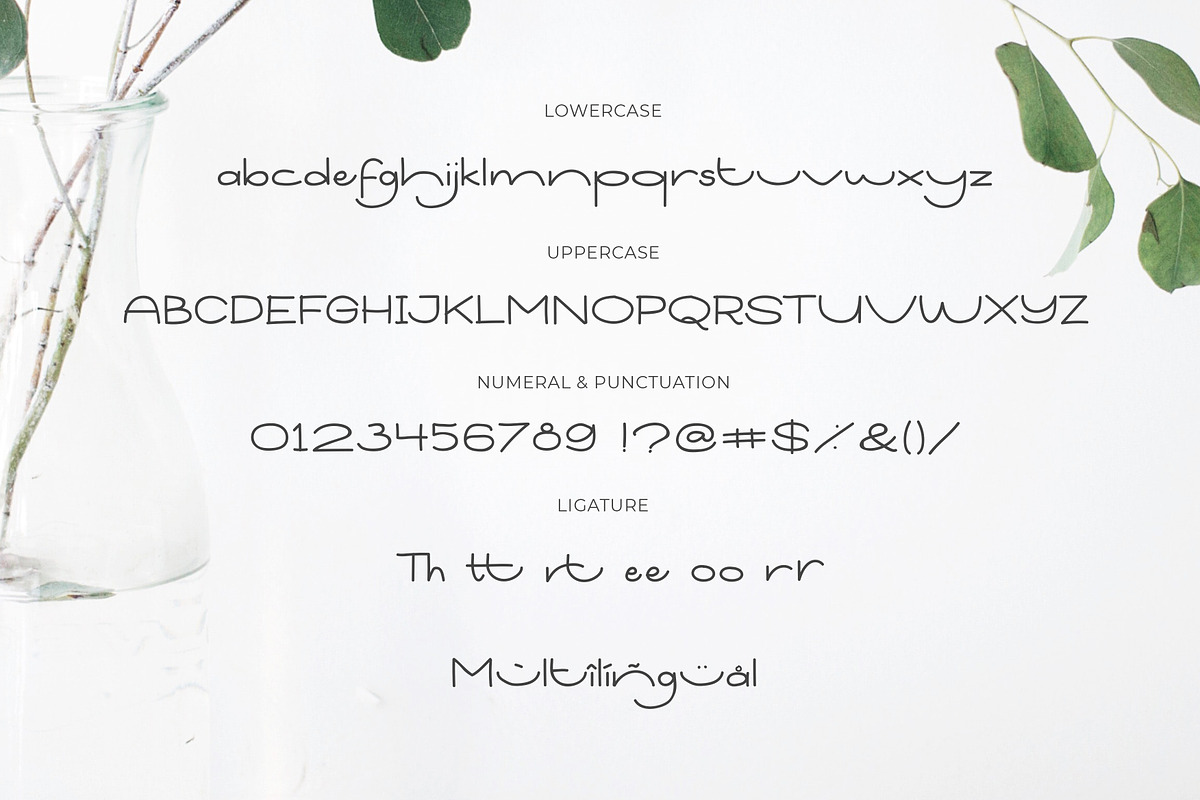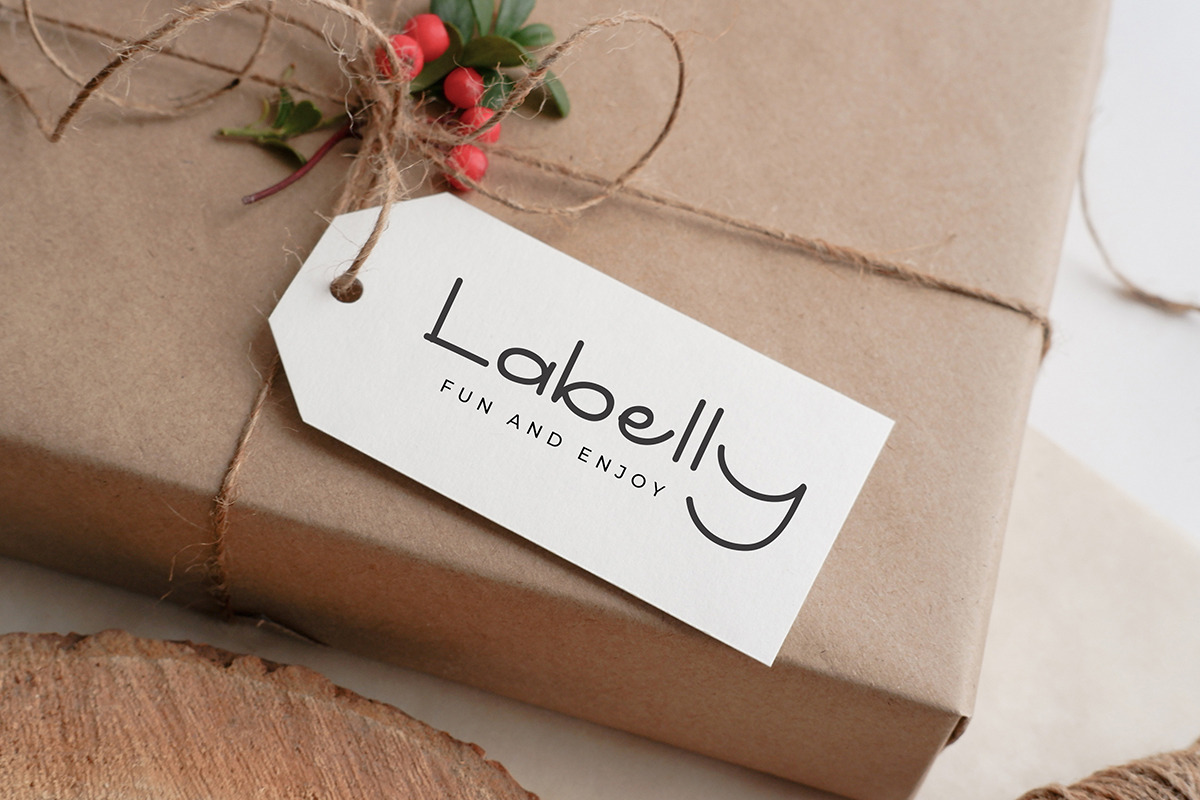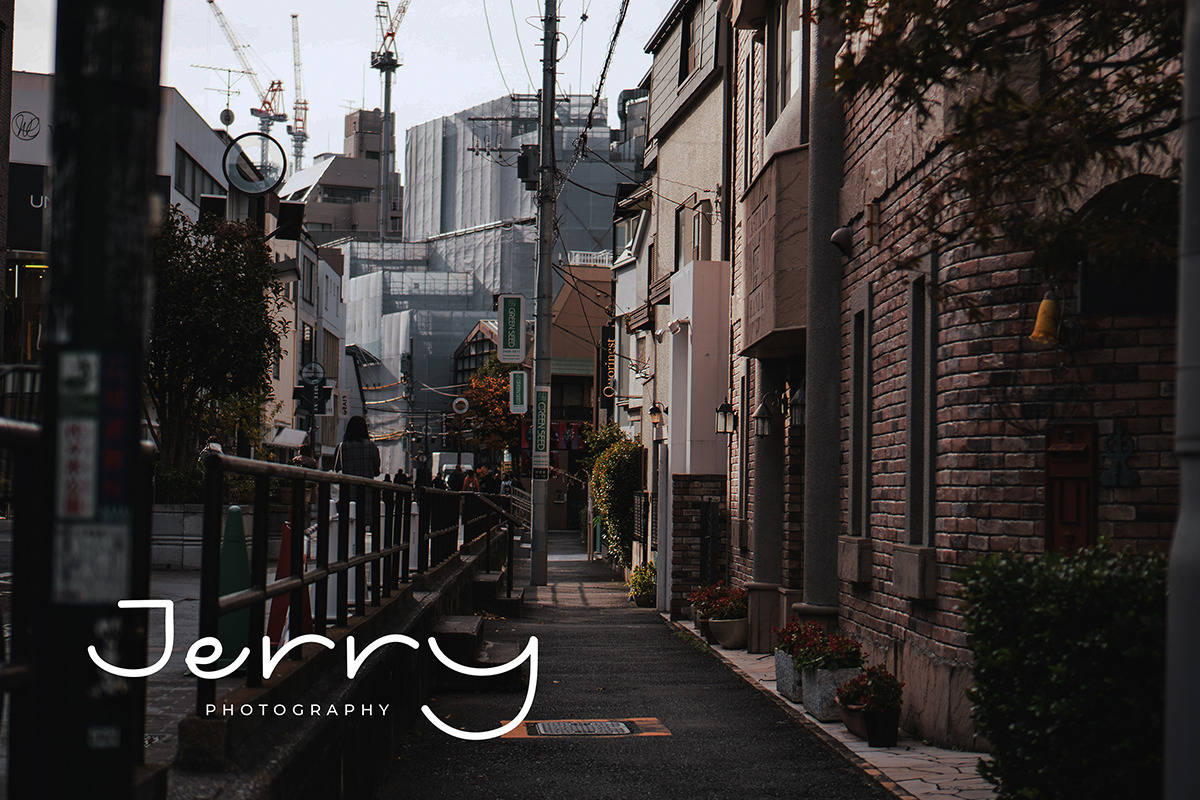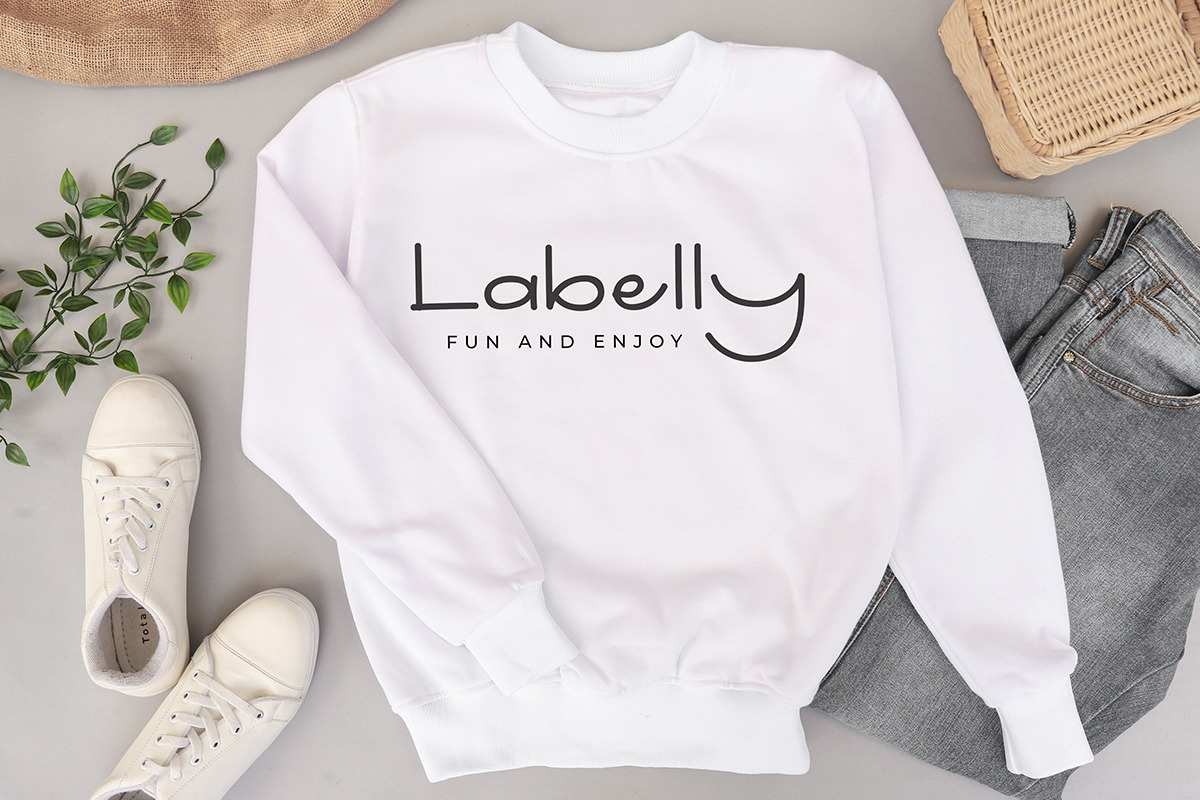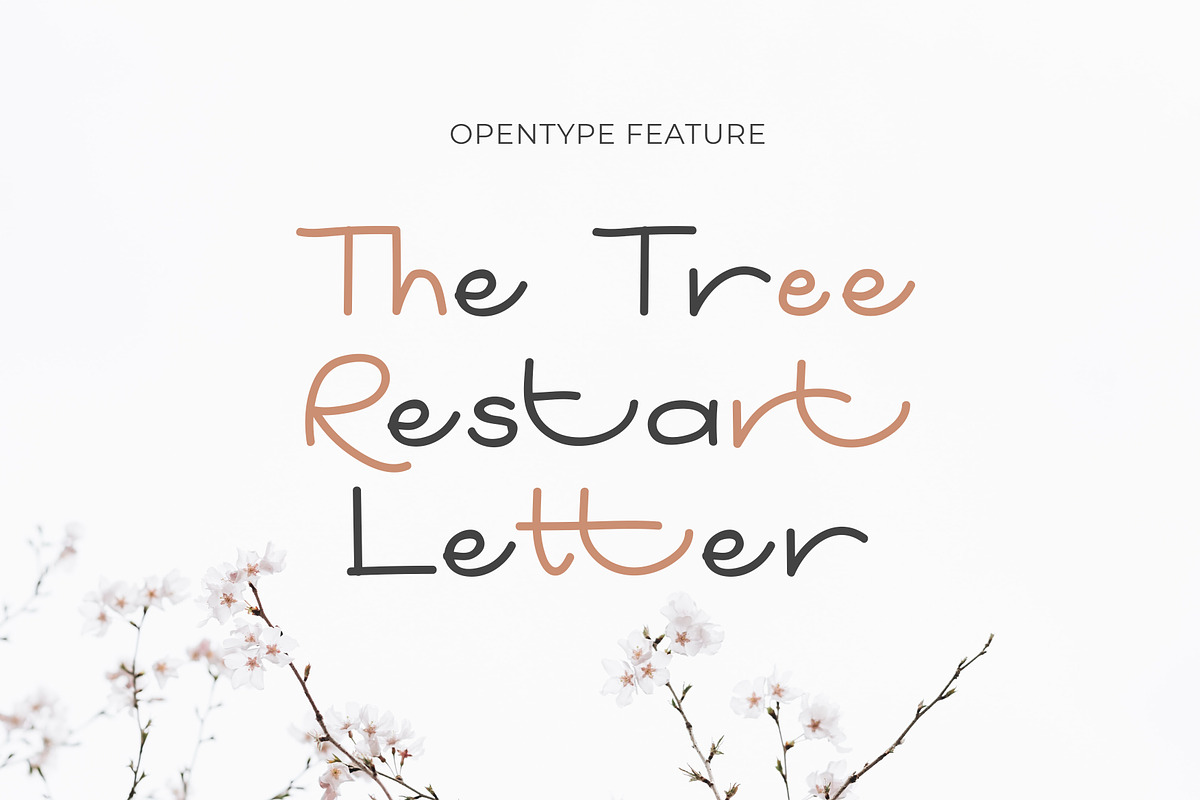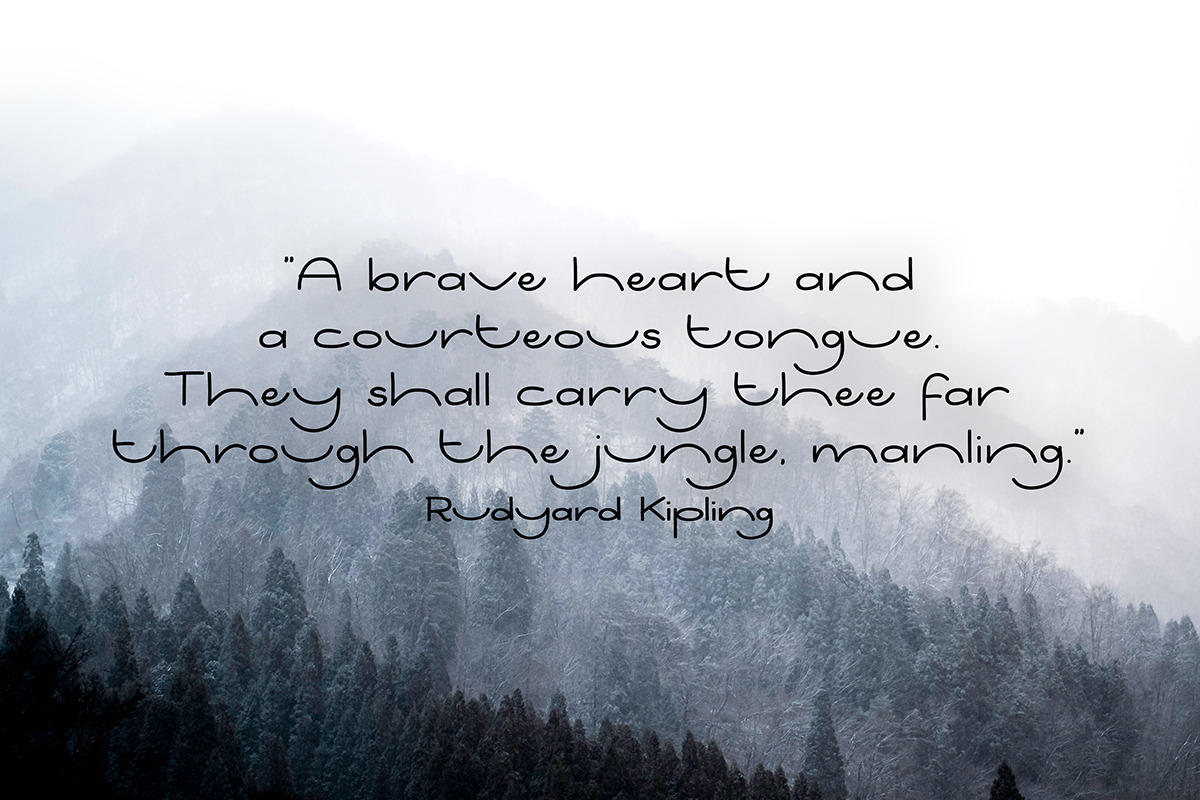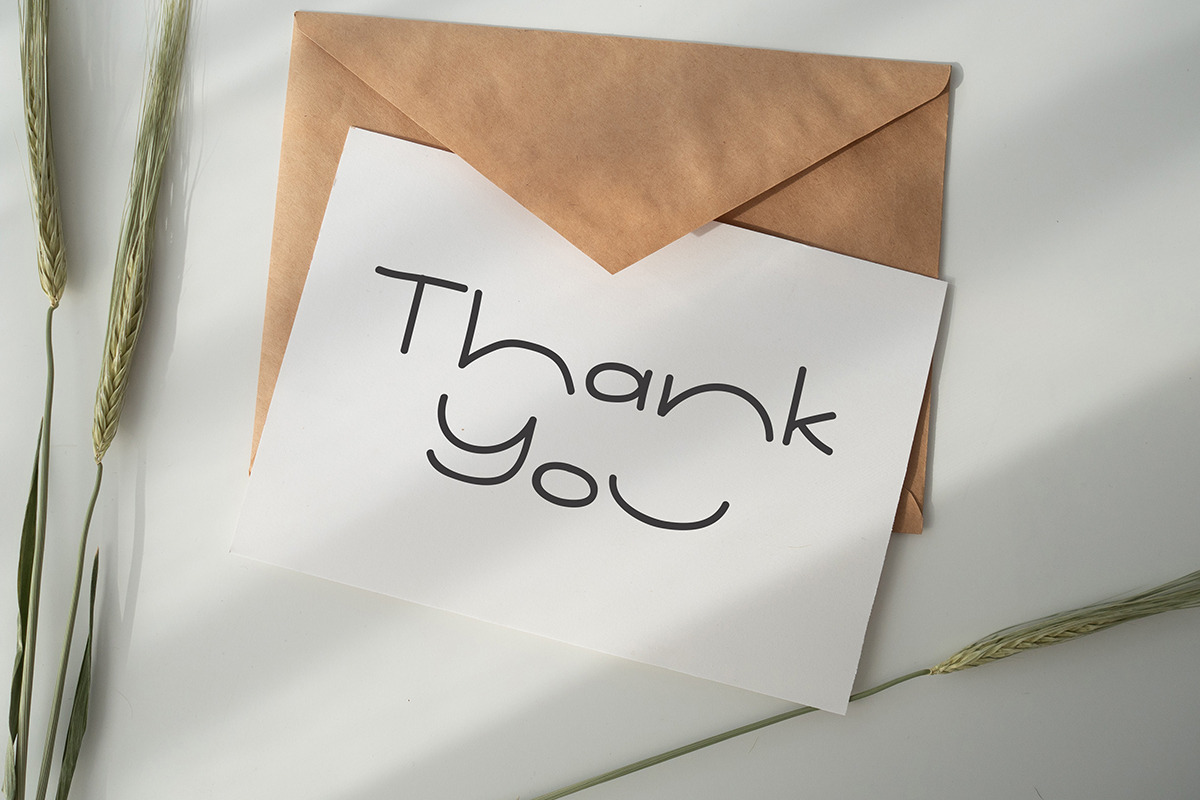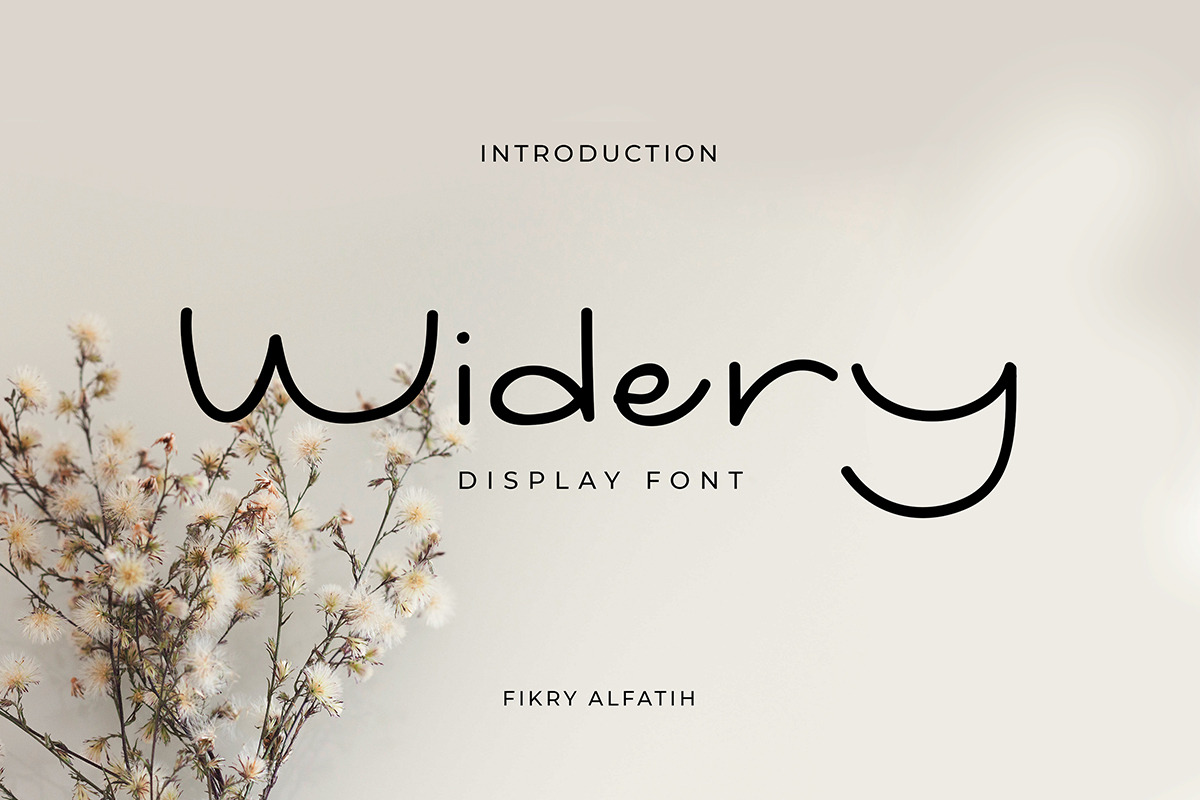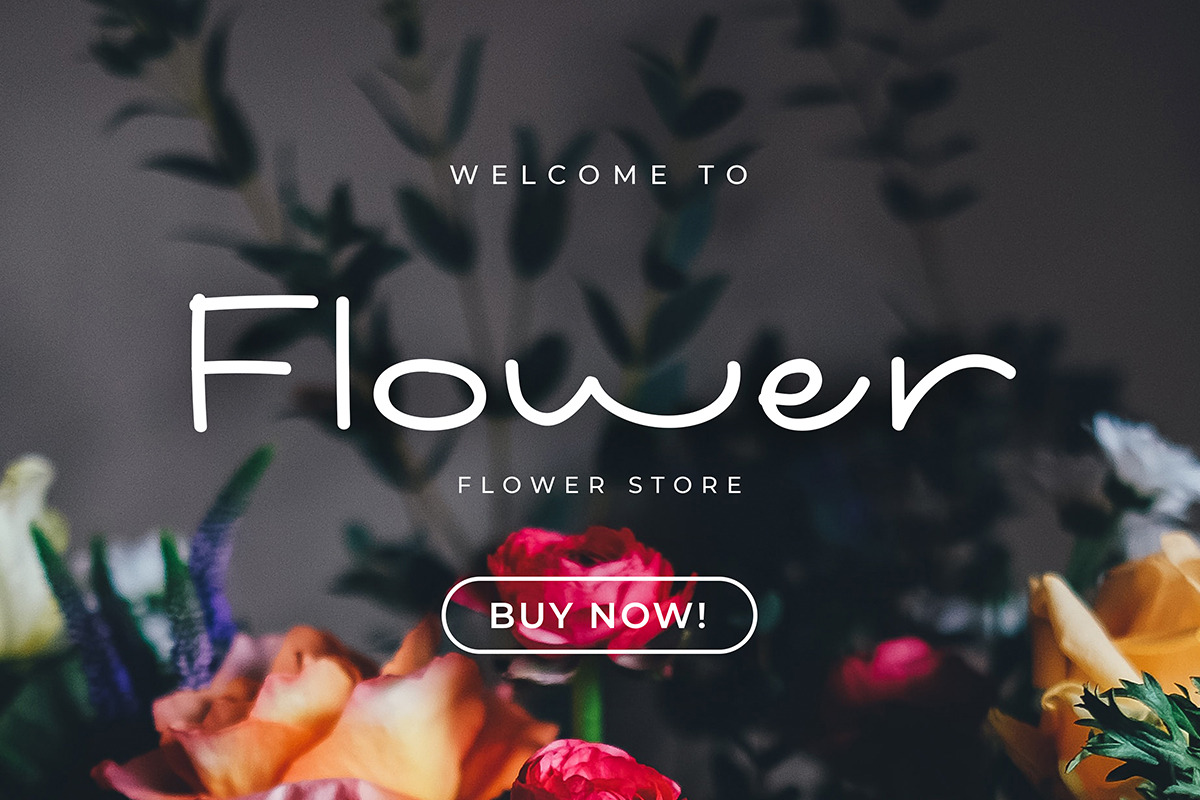
Widery Display Font
Widery is a fun display font. This font provides a luxurious hand-drawn effect that is guaranteed to add great appeal to your quotes, logo designs, brand image, product packaging, labels, websites, merchandise & social media posts.
- Numbers and Punctuation